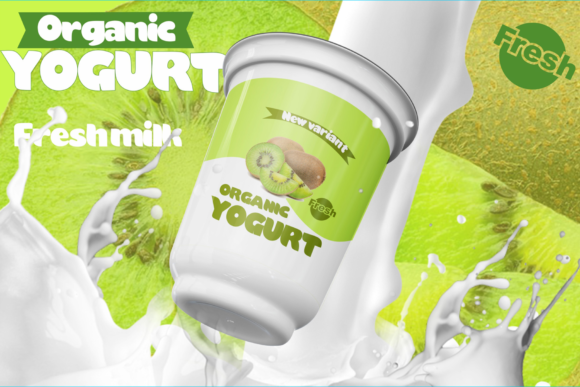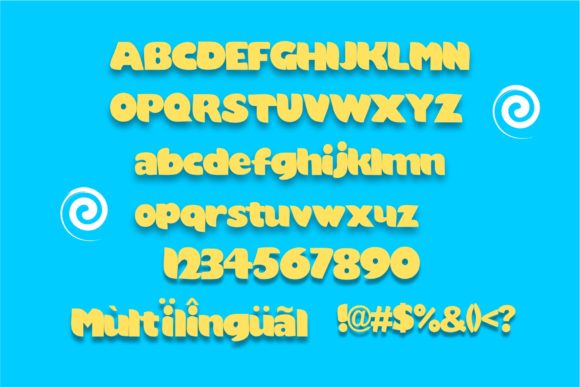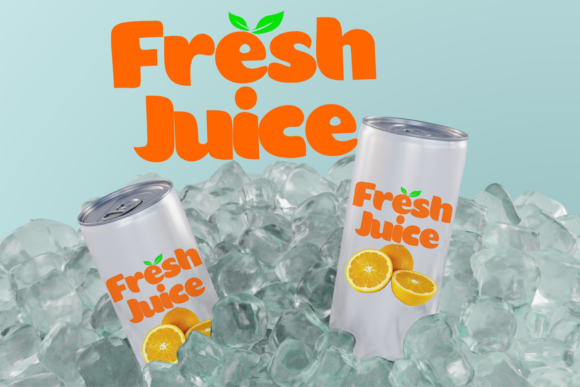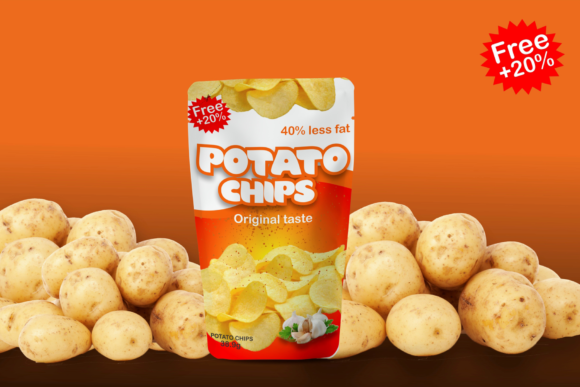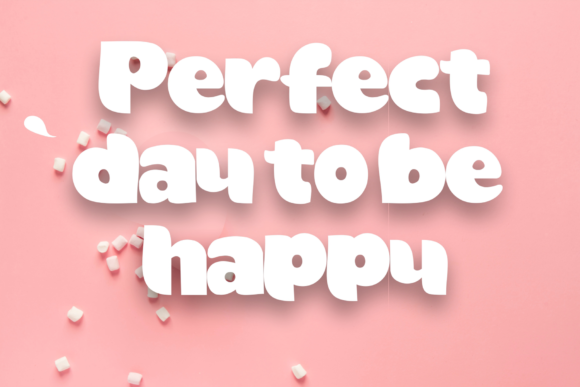
Introduction to Good Prize Font
Remember the excitement of receiving a prize at school? The rush of emotions, the beaming smile on your face, and the sense of accomplishment that comes with it. That’s exactly what the Good Prize Font embodies – a feeling of triumph and joy. This playful and chunky charactered display font is the perfect addition to any creative project, designed to brighten up even the most mundane tasks.
As a designer, you’re always on the lookout for unique and high-quality design resources to elevate your work. Good Prize Font fits the bill, offering a fresh and modern take on traditional typography. With its transparent background and free download option, you can incorporate it into your next project without any hassle. Whether you’re working on a school project, a kids’ activity, or a commercial design, Good Prize Font is sure to add a touch of whimsy and fun.
Key Features of Good Prize Font
- High-quality design: The Good Prize Font is carefully crafted to provide a premium look for your creative project, making it a valuable design resource.
- Transparent background: The font features a transparent background, allowing for easy integration with various design elements and backgrounds.
- High-resolution design: The font is designed at a high resolution, making it ideal for use in print and digital applications.
- Unique characteristics: The Good Prize Font features a unique blend of modern and classic design elements, setting it apart from other fonts in its class.
Honest Review: Good Prize Font
As a designer, I’m always on the lookout for high-quality design resources that can elevate my creative projects. Recently, I stumbled upon the Good Prize Font, which caught my attention with its unique and modern design.
What works well with this font is its versatility. It can be used for a wide range of creative projects, from branding and marketing materials to digital products and even print designs. The font is available for free download, making it an excellent resource for designers on a budget.
- ✨ High-quality design with a modern twist
- ✨ Versatile and suitable for various creative projects
- ✨ Transparent background, allowing for easy customization
However, there are a few limitations to consider. The font may not be suitable for projects that require a more traditional or classic look. Additionally, the font may not be as readable at smaller font sizes.
- ⚠️ May not be suitable for traditional or classic design projects
- ⚠️ May not be as readable at smaller font sizes
Overall, I’m impressed with the Good Prize Font. Its unique design and versatility make it an excellent addition to any designer’s toolkit. While it may have some limitations, I believe it’s a valuable resource for designers looking to elevate their creative projects.
Tips for Getting the Most Out of Good Prize Font
To get the most out of Good Prize Font, use it in high-quality designs that showcase its unique characteristics. Experiment with different font sizes, colors, and combinations to create visually appealing text effects. You can also use the font in conjunction with other design elements, such as graphics and images, to create a cohesive and engaging design.
Common Use Cases for Good Prize Font
Good Prize Font is commonly used in creative projects that require a modern and sleek aesthetic, such as business cards, brochures, and websites. It’s also a great choice for designers who want to add a touch of sophistication and elegance to their designs.